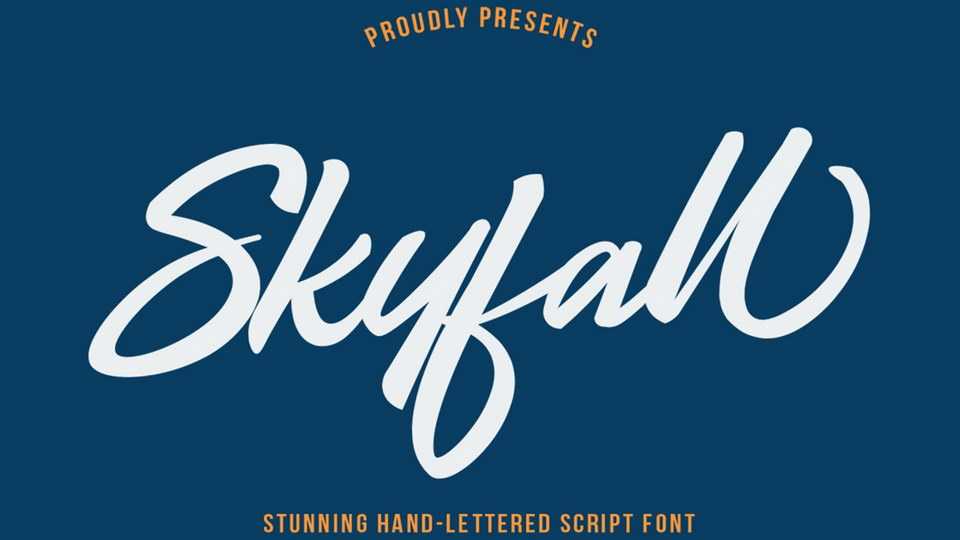
Download Skyfall font, a stunning hand-lettered script. Skyfall is perfect for creating elegant branding and headlines for handmade, food & beverage and artisan goods.